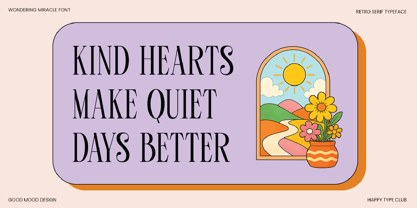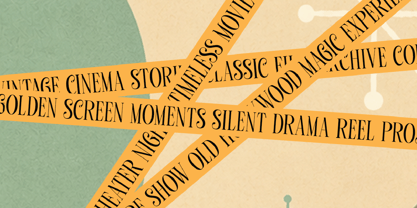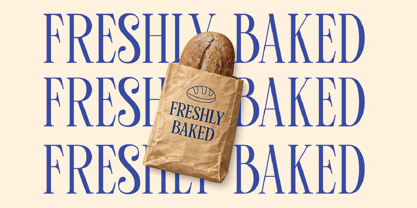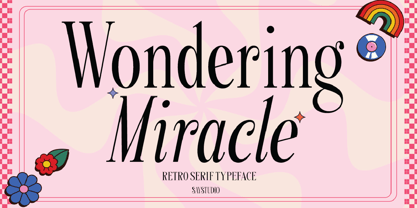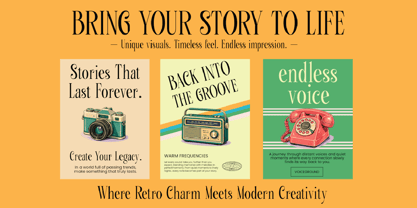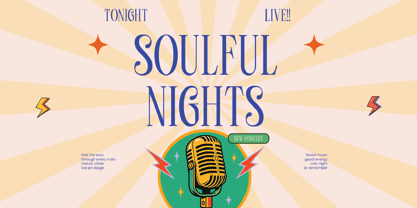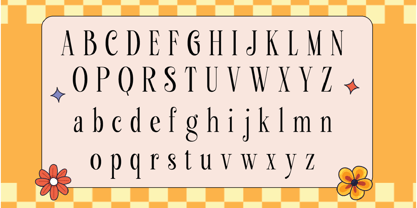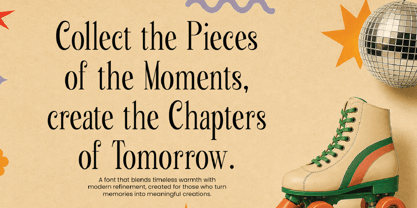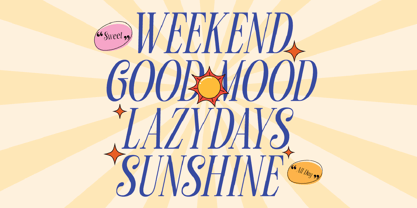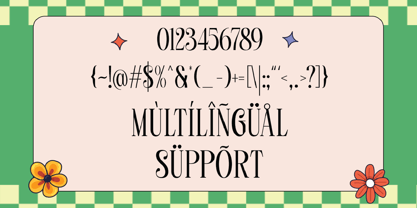
Wondering Miracle
Wondering Miracle is a fun retro serif typeface that blends timeless elegance with playful vintage charm. Featuring graceful high-contrast letterforms, stylish curves, and a nostalgic personality, this typeface is designed to bring warmth, creativity, and character into every project. Its classic serif structure keeps it highly readable while maintaining a bold decorative presence.
Perfect for branding, logos, editorial layouts, posters, packaging, magazine covers, product labels, invitations, beauty branding, social media content, and feminine creative projects, Wondering Miracle delivers a beautiful balance between sophistication and retro expression. Whether you're designing for vintage-inspired businesses or trendy modern brands, this font adds instant personality.
Created for designers who love elegant nostalgia, Wondering Miracle shines across both print and digital projects. From boutique branding to stylish storytelling visuals, this typeface helps your designs feel memorable, charming, and effortlessly timeless.
- Regular and Italic
- Uppercase and Lowercase
- Number and Punctuation
- Multilingual Support